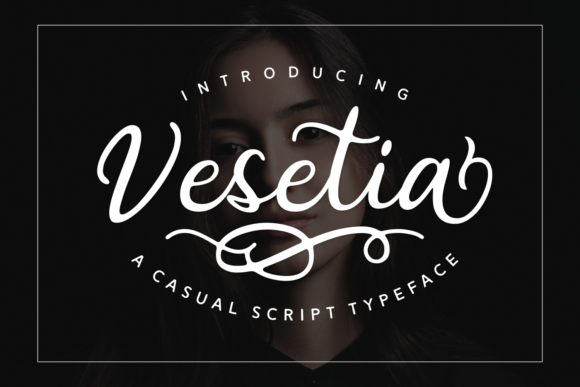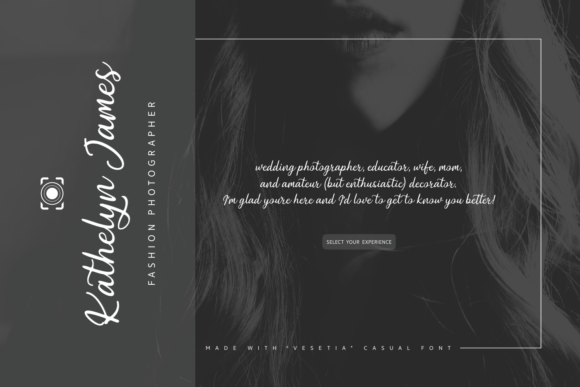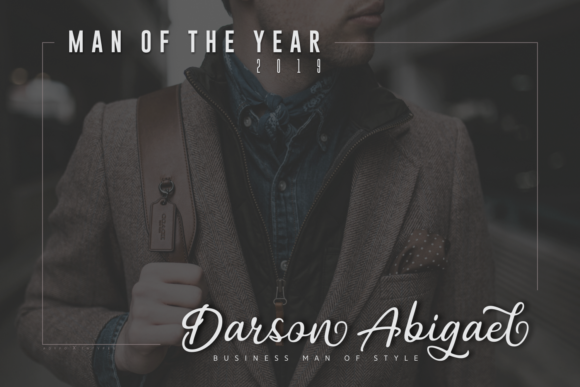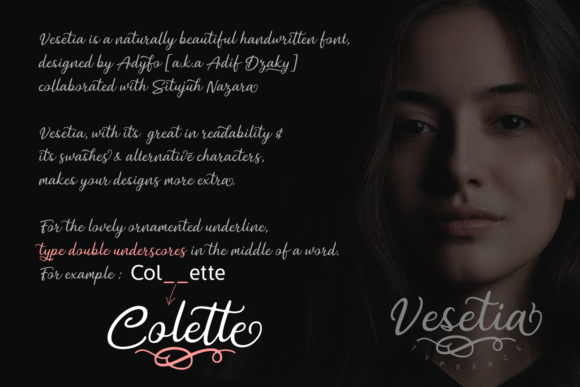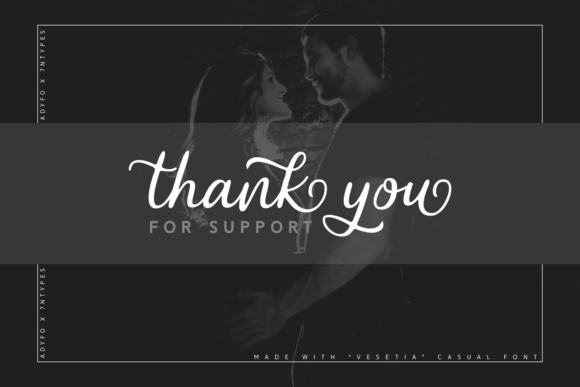
Vesetia Font
About Vesetia Font
The Vesetia is a casual script font with amazing swashes. It’s handwritten style gives it an luxurious and glamorous look which can be used to lift your design to a higher level.